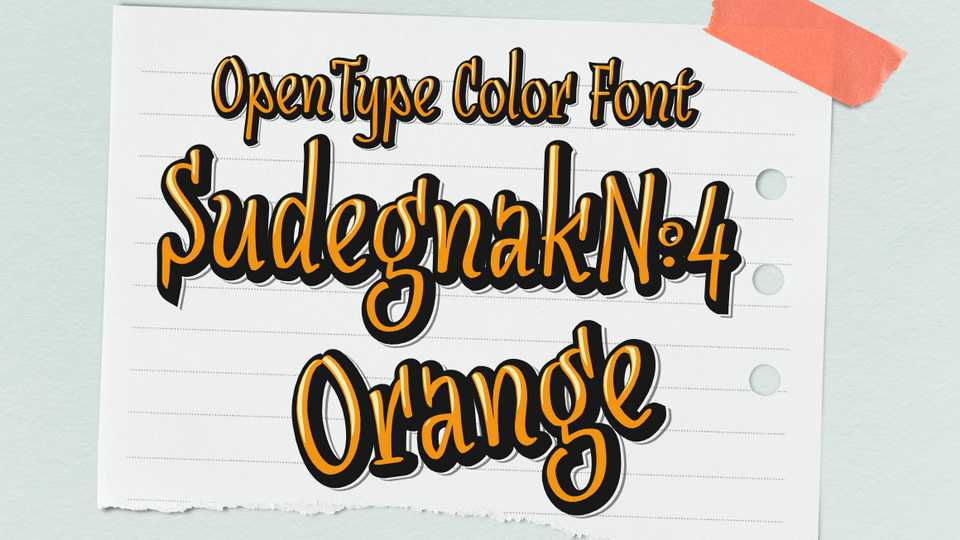
Download Sudegnak №4 font, a decorative color typeface in Blue, Orange, Red & Green. Sudegnak №4 is perfect for cards, crafts, fun and holiday designs, games, kids products and more.
Designer: Grzegorz Luk